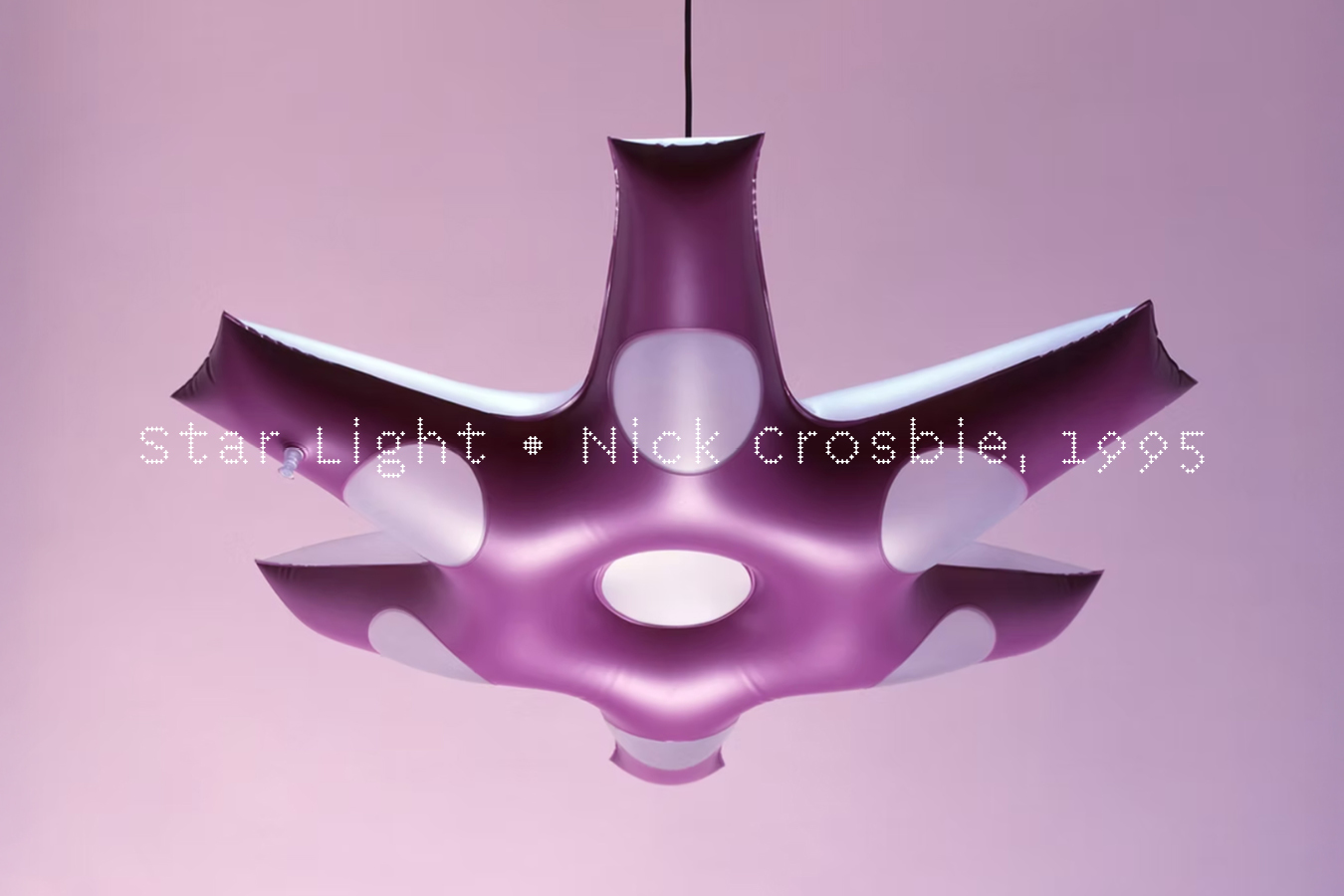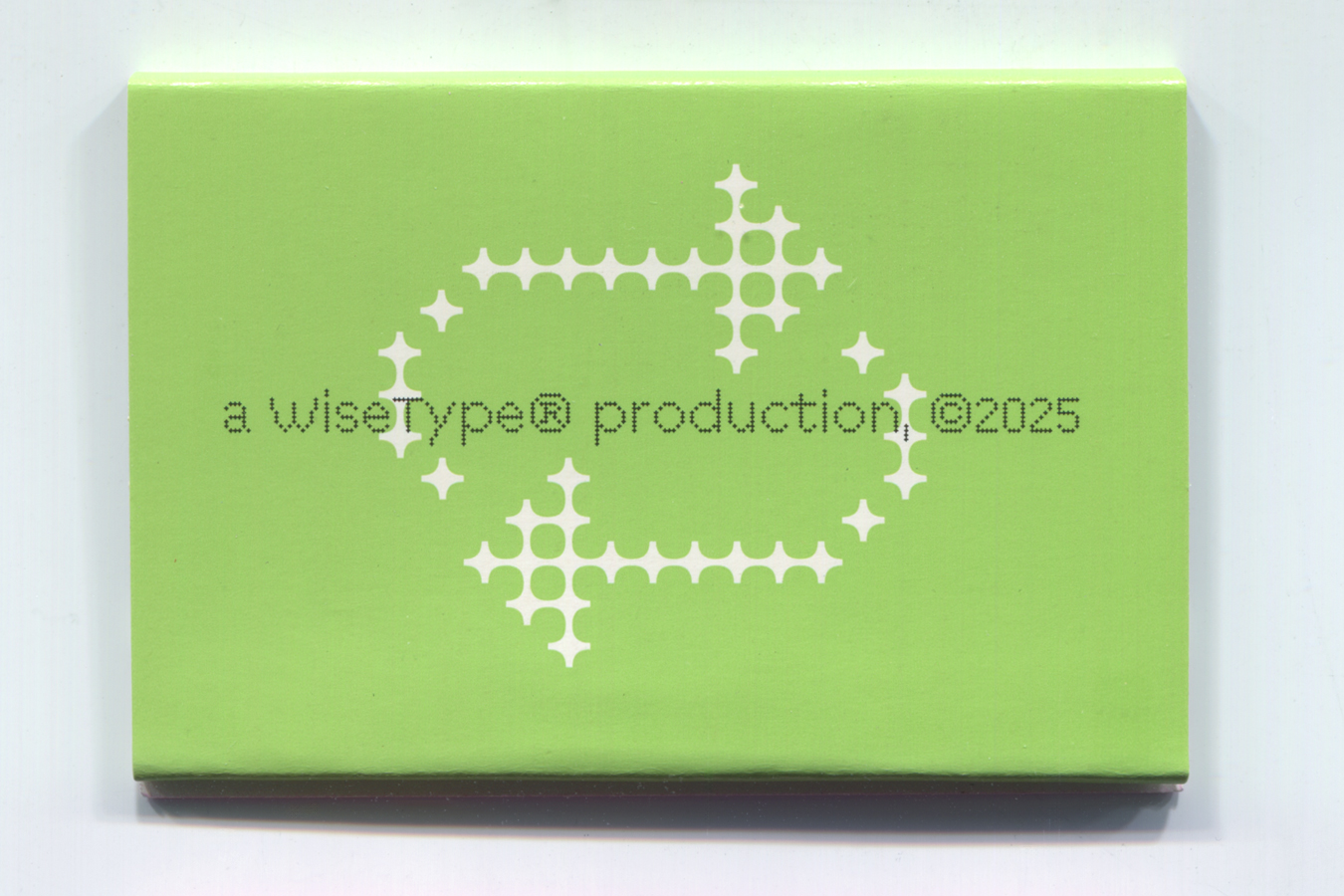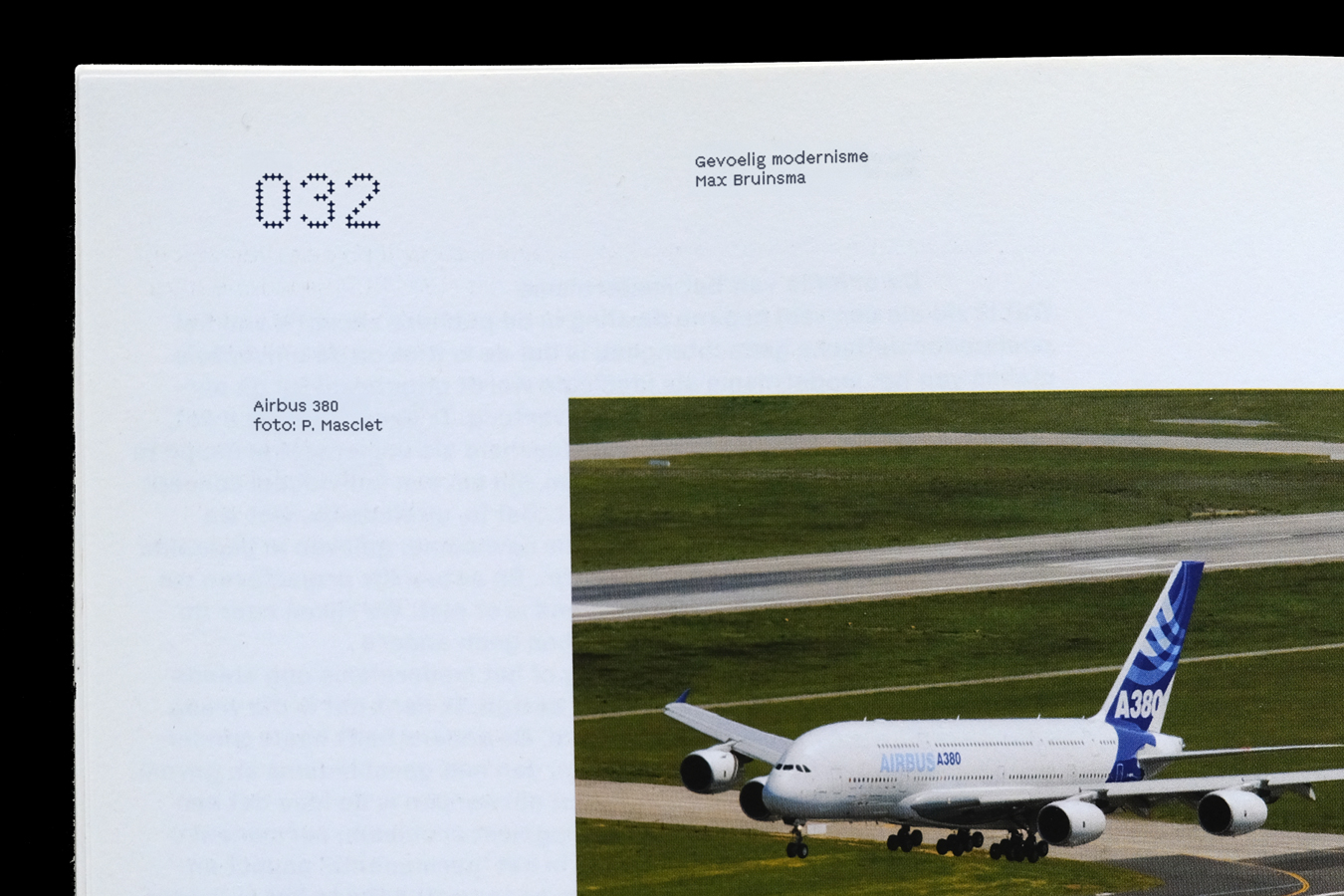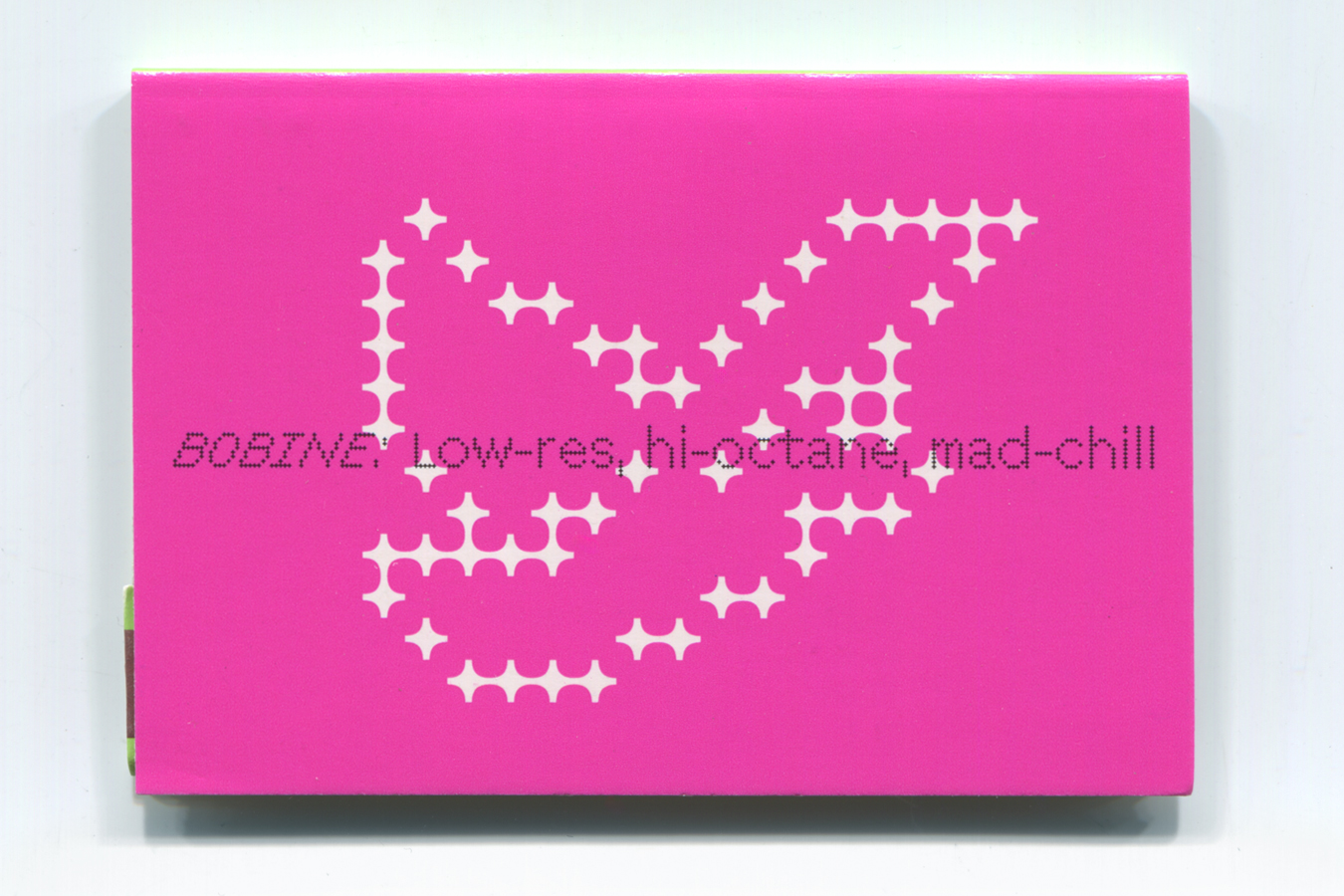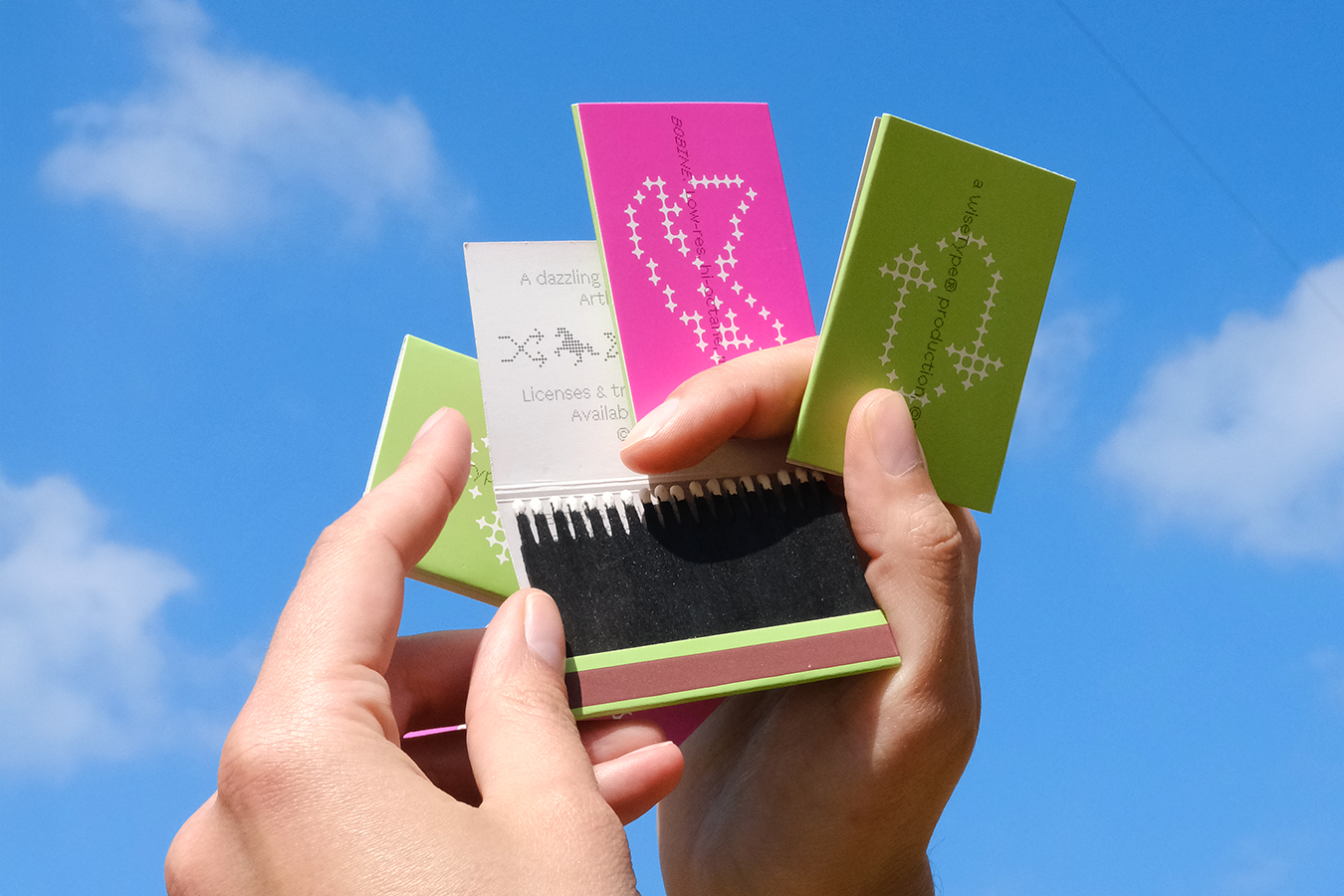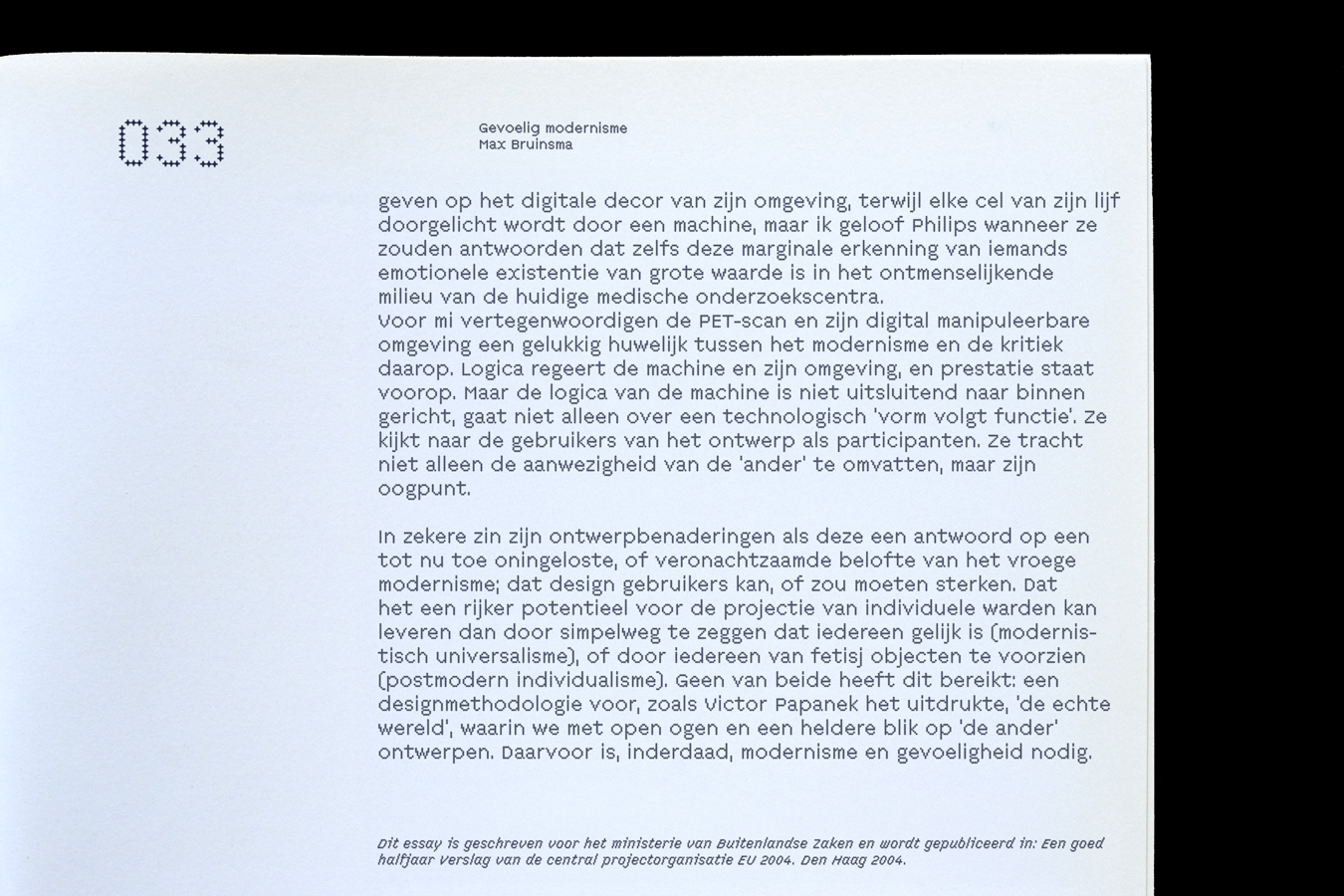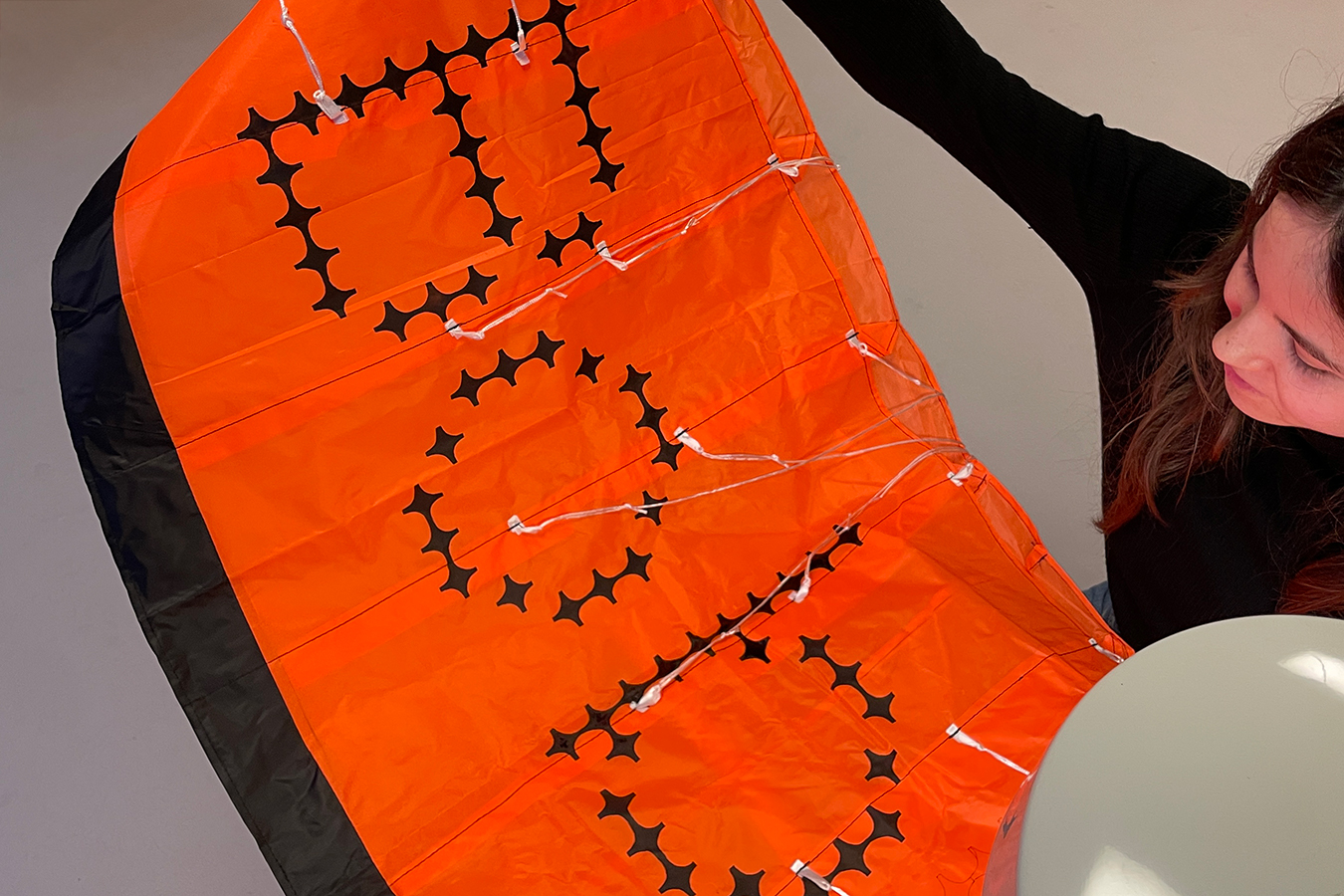
Bobine
Low-res, hi-octane, mad-chill... Bobine is the result of an investigation by Arthur Calame into the dot matrix genre of types. Arthur has managed to successfully tame a coarse pixel grid into a design that is remarkably legible at smaller sizes, resulting in a design that feels just as futuristic as it does classic. Bobine belongs up in the heavens. Soaring high above the cirrostratus. Catching wind and dazzling those who stand below.
The design started off as a spark and has since grown into a whole constellation of fonts. The family includes both regular and italic styles built from a 4-pointed star. To achieve the bold weights, the unit itself changes shape rather than growing in scale to achieve more density. The bold weights feature an 8-pointed star for a punchier impact. Both weights come with italic counterparts; slightly more condensed and boast extensive character-sets with oldstyle figures, diacritics, symbols, and a myriad of other typographic niceties.
The cherry on top is Bobine’s Titling style, inspired by classical in-line capitals. Two units taller than the regular and bold styles, it provides a higher resolution whilst harmonising comfortably with the rest of the family. The titling set offers two capital forms; a serif set in the uppercase, and a sans-serif set in the lowercase. The titling set also includes a glittering array of symbols, pictograms and emoji’s.
Arthur Calame is a Paris based designer who set up Calame.Bureau in 2018. The bureau designs typefaces, visual identities and editorial objects for clients across a wide range of fields.
Alternative a (ss01)
Alternative g (ss02)
Alternative x (ss03)